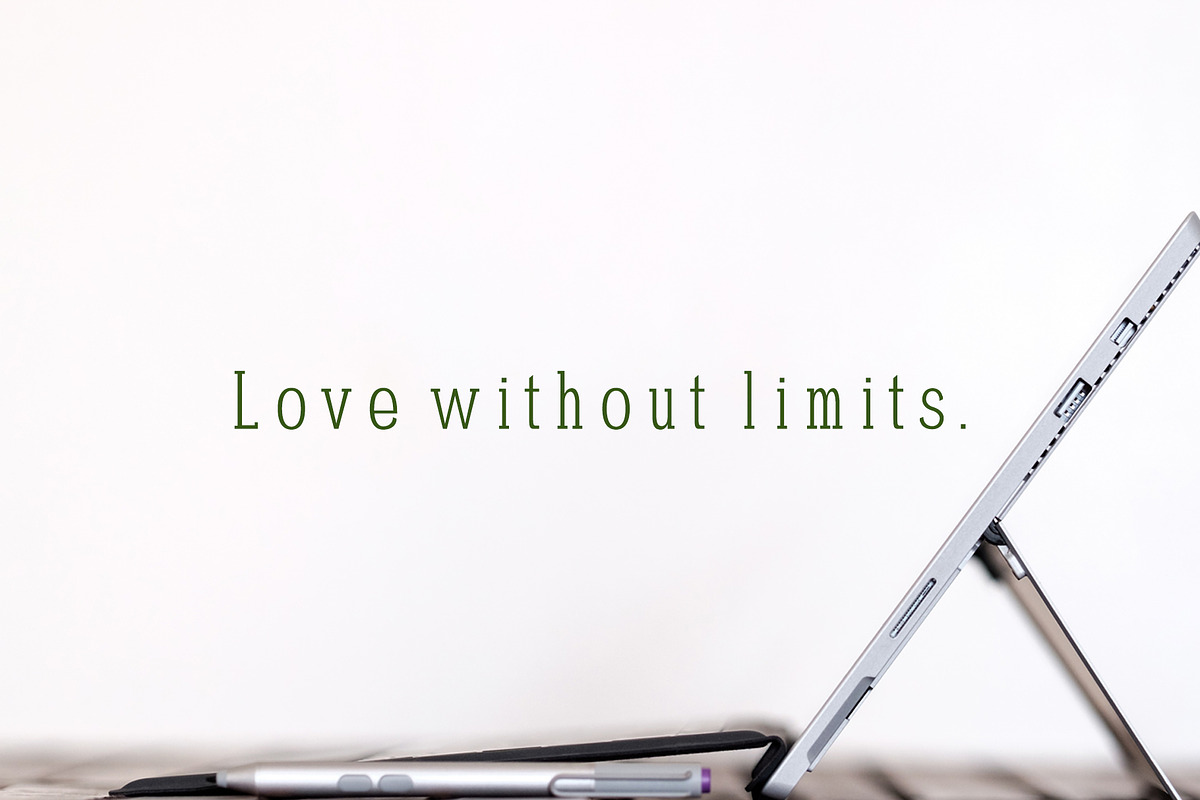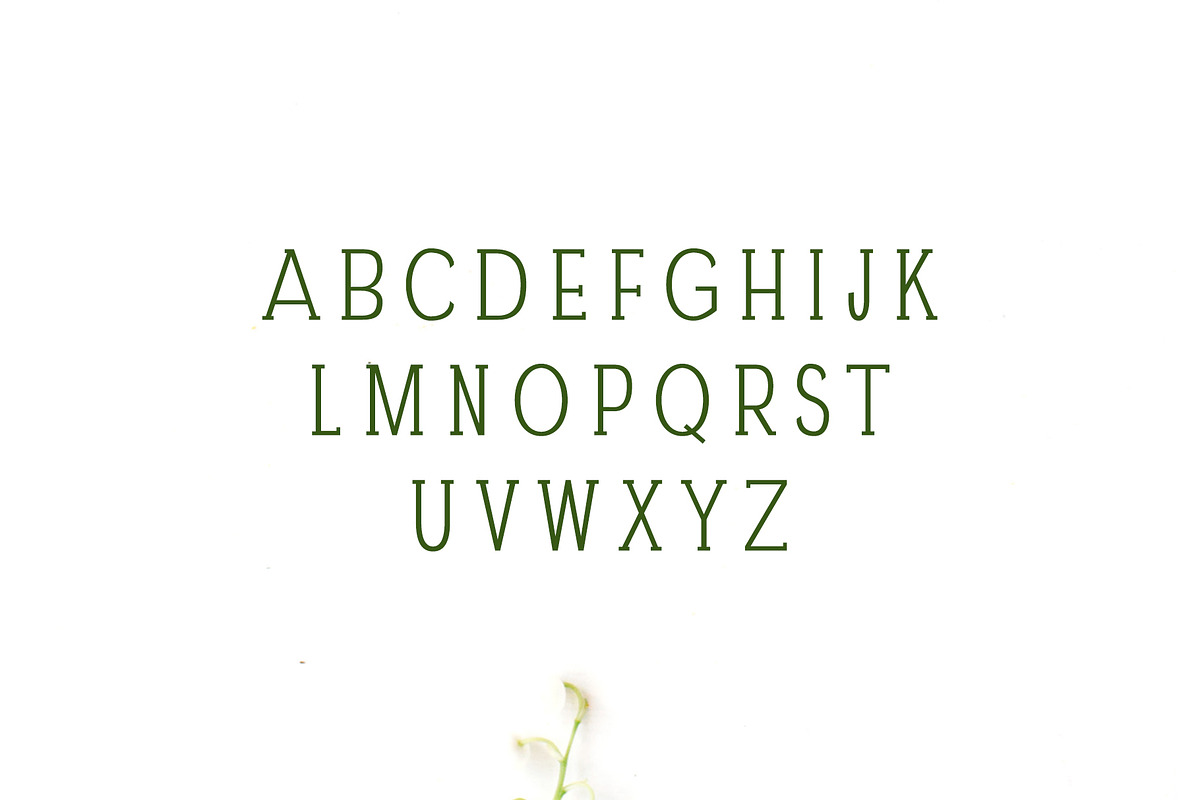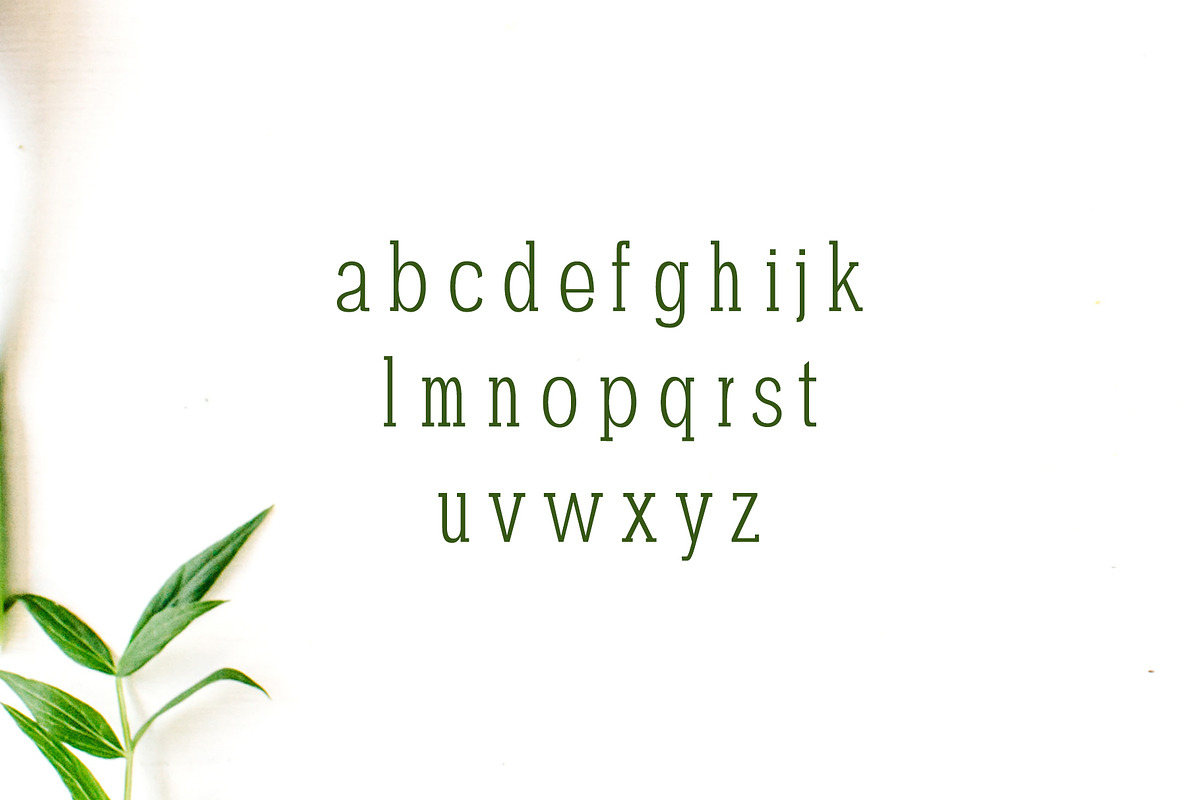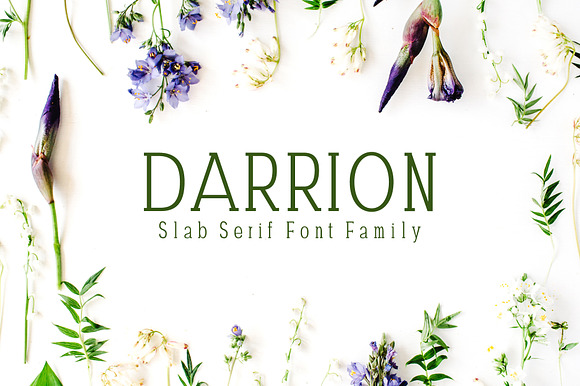
Darrion Slab Serif Font Family
Darrion Slab Serif Font is a mind blowing lovely font. Darrion comes with four weights. It is specailly designed for making minimal projects, but can be used for logo, templates, logos, headlines, decoration, banners and templates etc.
Regular, Thin, Outline, Medium and Bold Weight
Darrion Font Features:
- Darrion comes with four weights.
- Regular, Thin, Outline, Medium and Bold Weight
- Darrion Thin
- Darrion Regular
- Darrion Medium
- Darrion Bold
- Darrion Outline